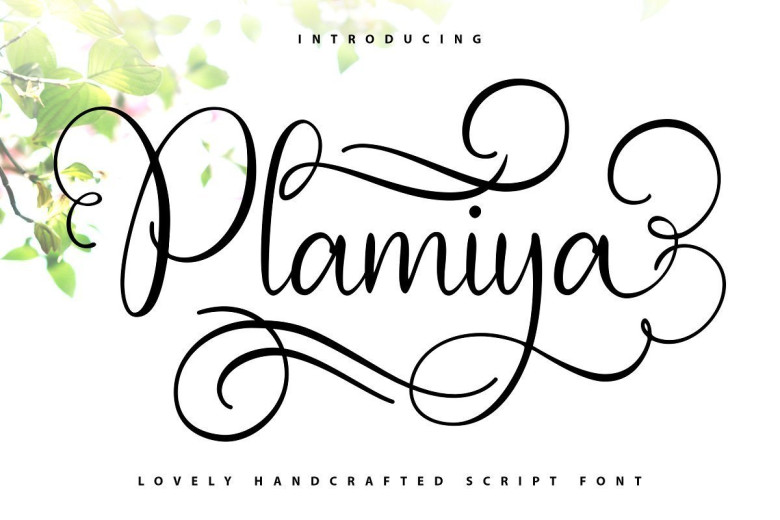
Plamiya Calligraphy Script Font
Introducing a new beautiful calligraphy font Plamiya! Plamiya is perfect for elegant logos, upscale packaging, wedding stationery, websites, and any other projects requiring a handwritten and luxurious touch. Several kinds of swash and alternate included so that you can give your logo or name of a custom, hand-calligraphy display.
Plamiya was built with Open-type features and includes beginning and ending swashes, alternate swash characters for most lowercase letters, numbers, punctuation, alternates, ligatures and it also supports other languages.